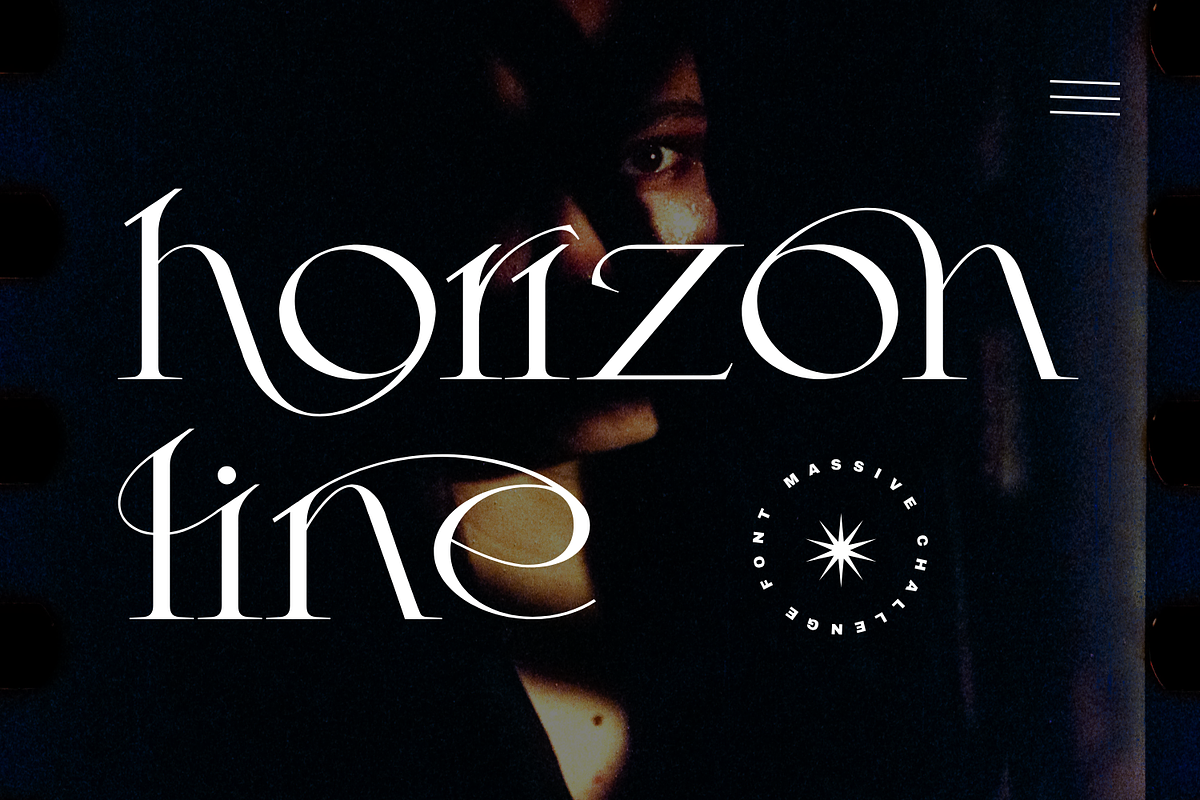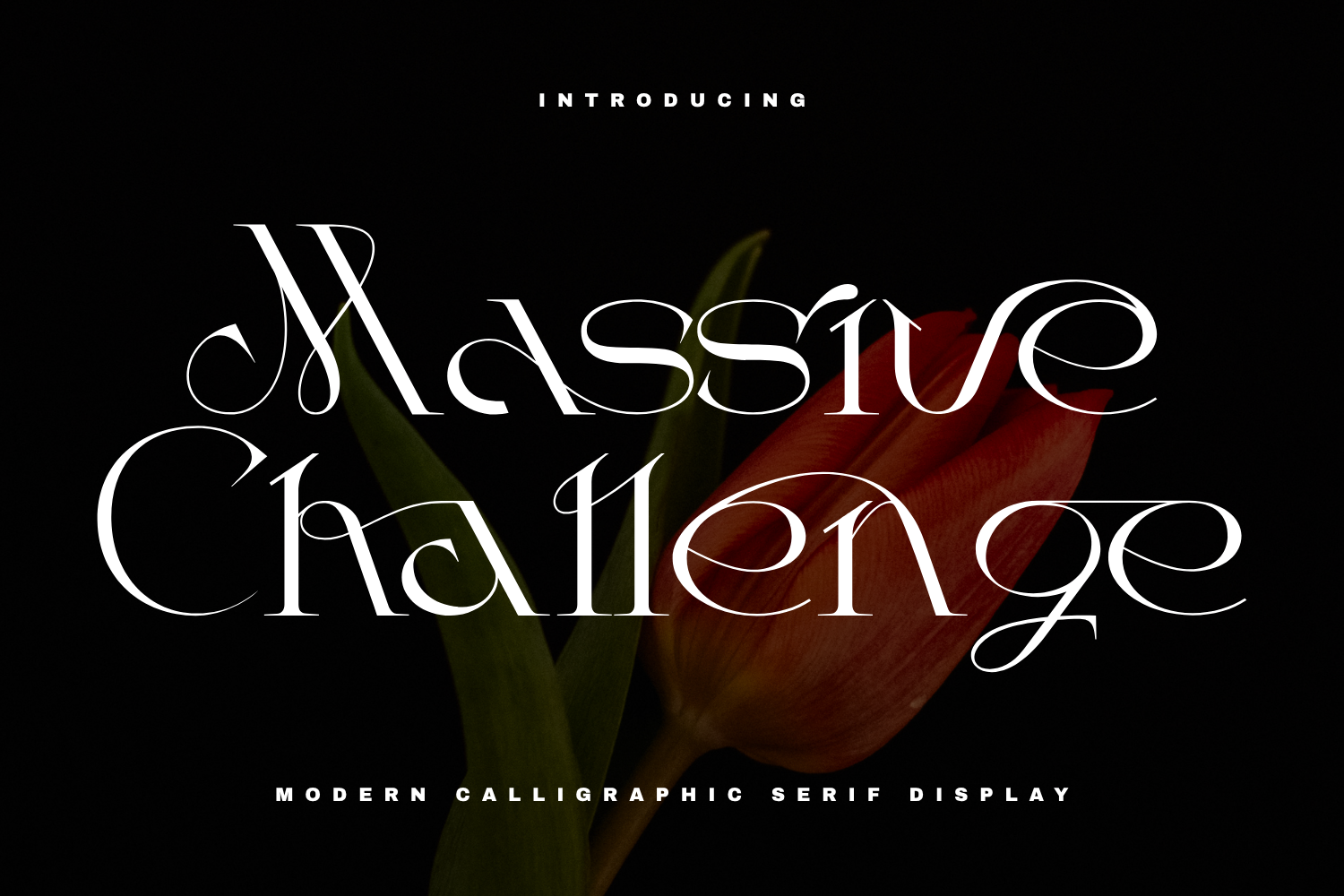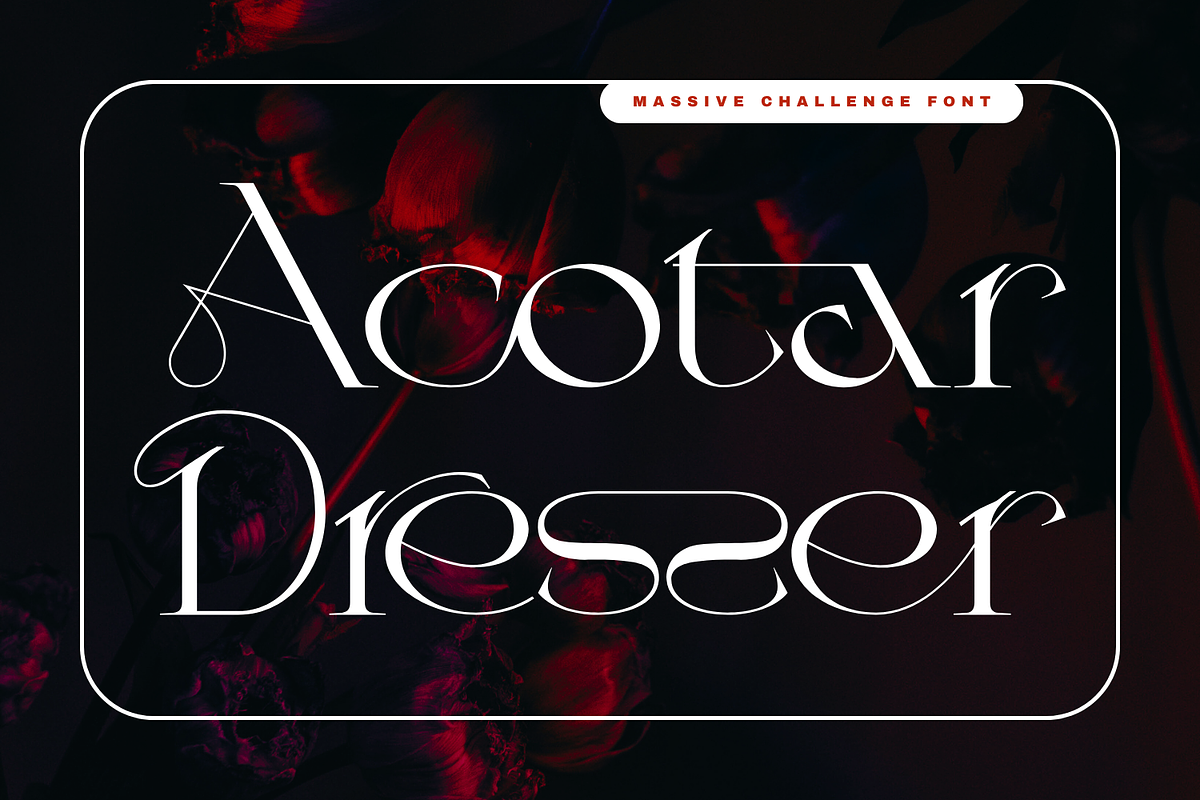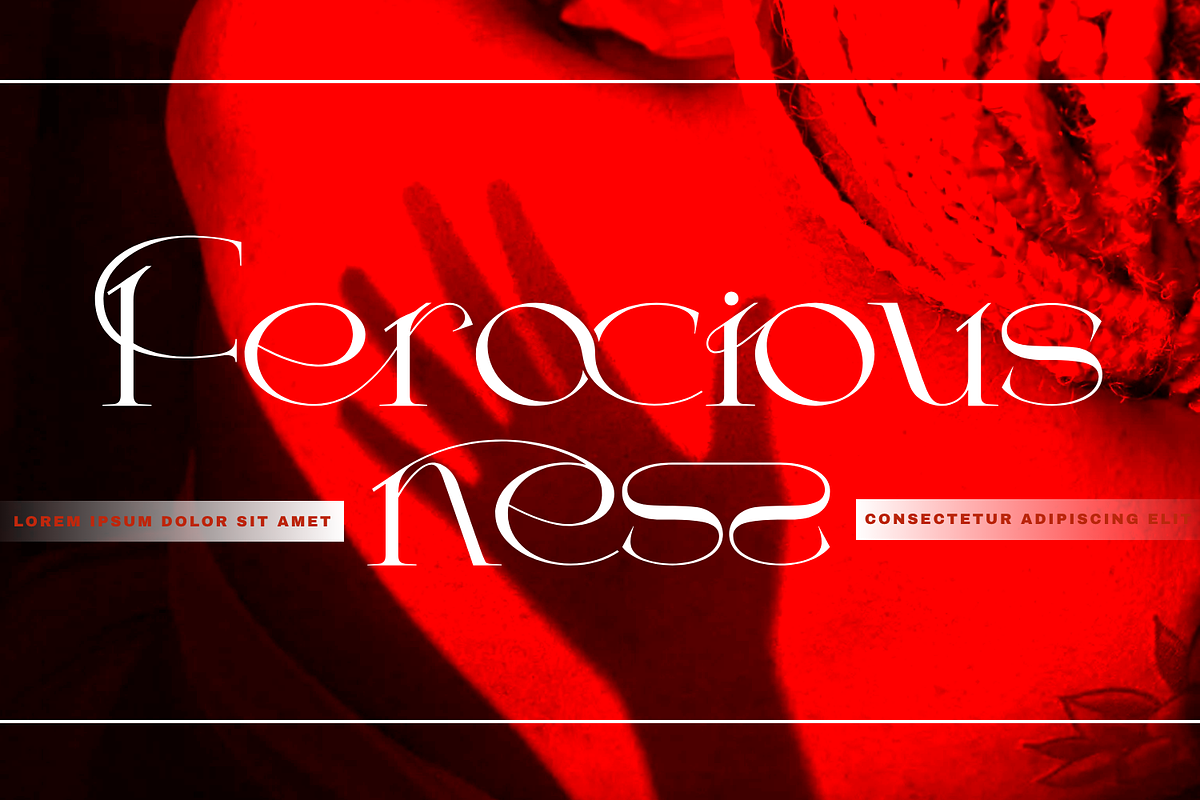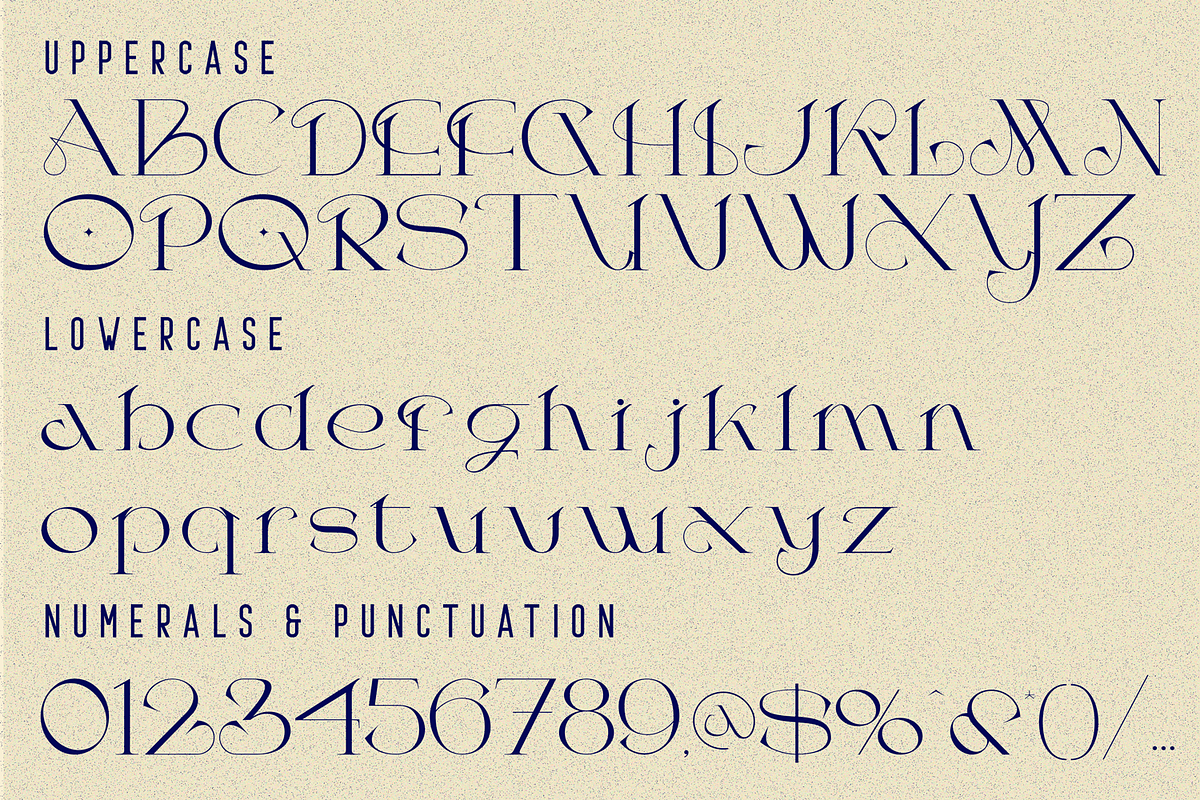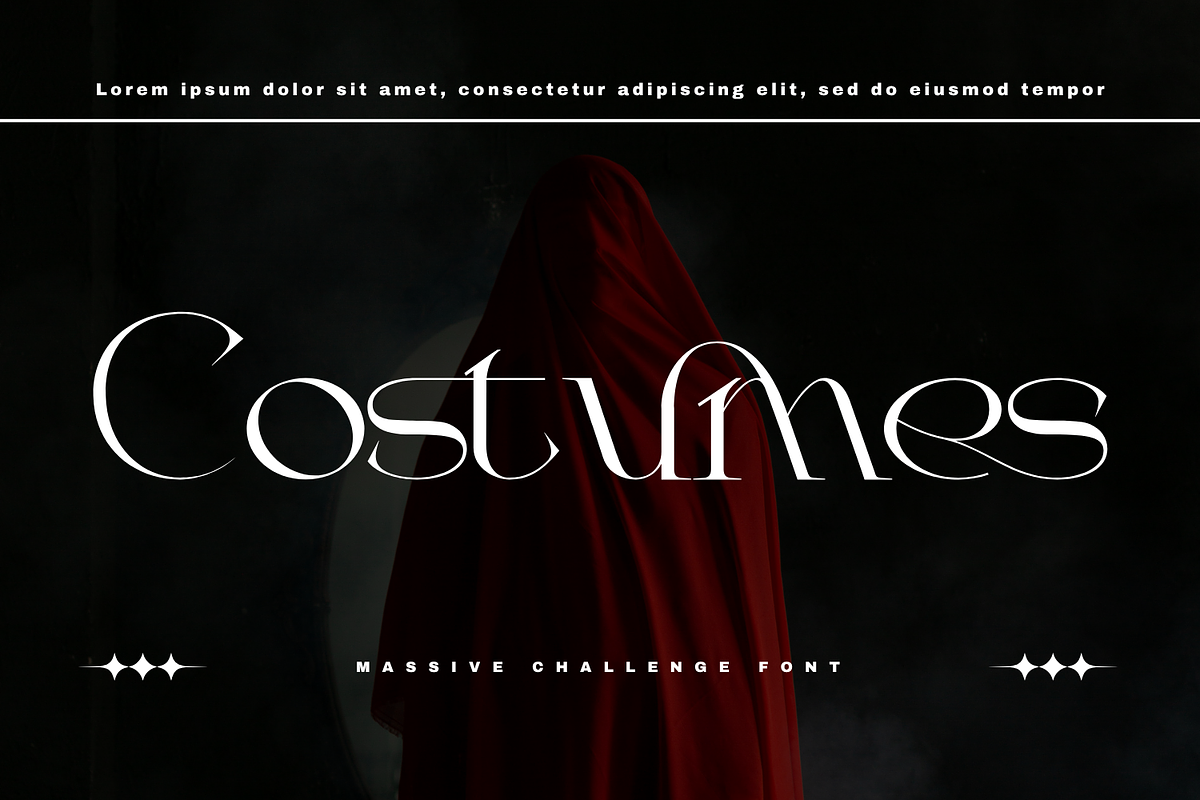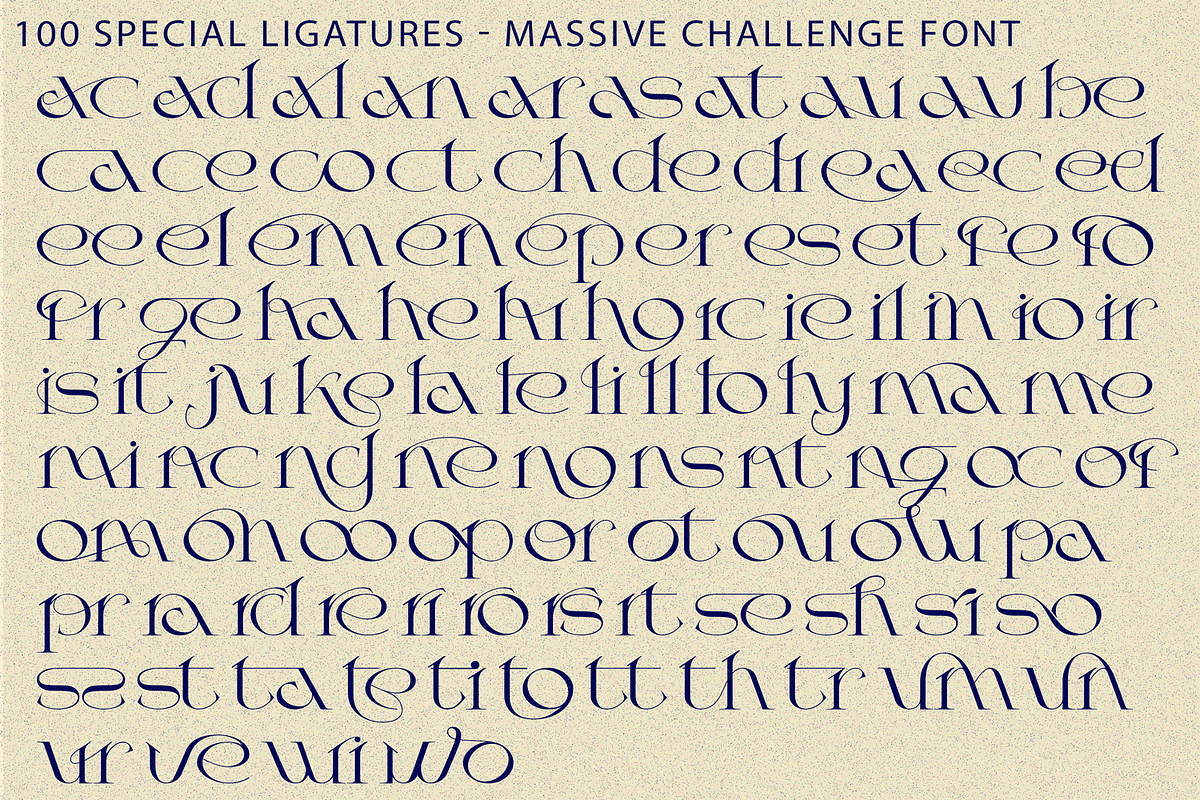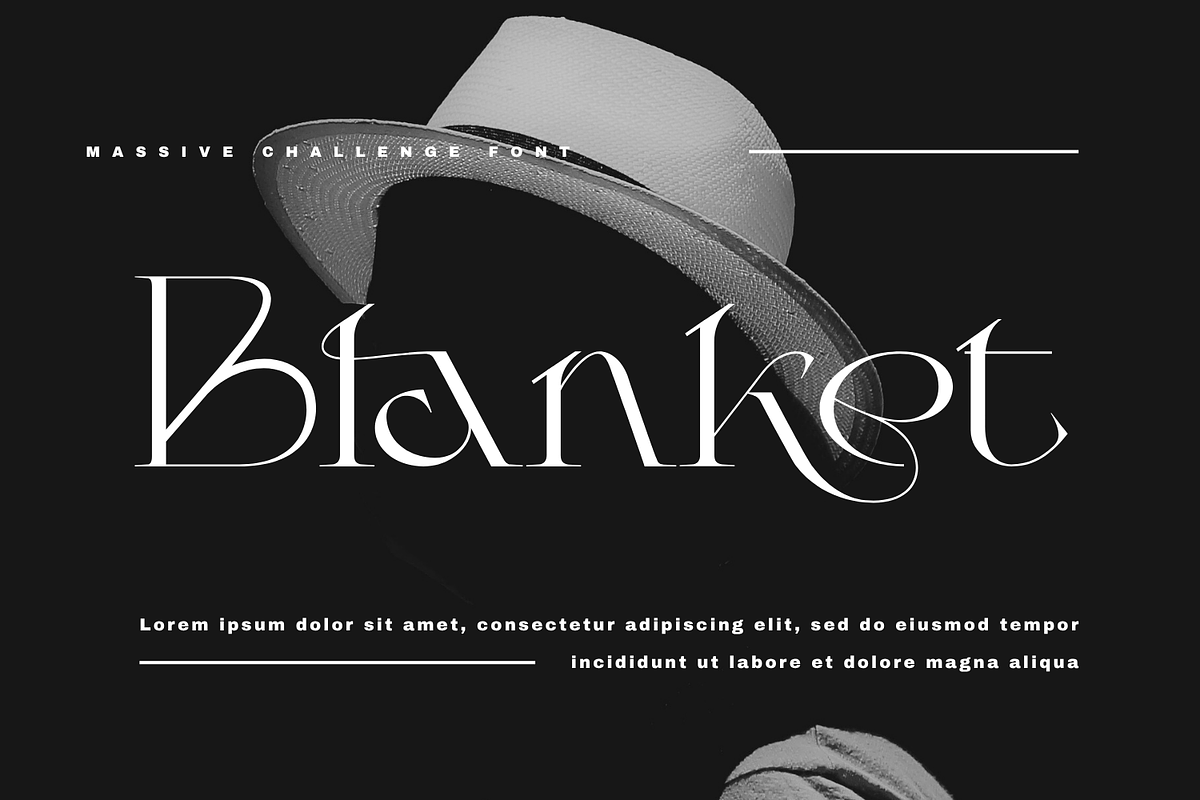
Massive Challenge - Fashion Font
Massive Challenge - Fashion Font is a luxurious modern serif display font that blends timeless elegance with contemporary sophistication. Featuring dramatic high-contrast strokes, delicate hairline details, and beautifully flowing swashes, this typeface creates a refined and graceful visual experience that instantly captures attention. Designed with fashion-forward aesthetics in mind, Massive Challenge showcases elongated terminals, elegant curves, and expressive letterforms that bring a sense of movement and artistry to every word. Its distinctive character makes it ideal for creating memorable branding and visually stunning typography compositions.
Uppercase & Lowercase Letters
Around 100 Special Ligatures & Alternates
Accented Characters for multilingual support
🔤About 100 ligatures combined with Stylistic Alternates Font:
ac ad al an ar as at au av be ca ce ch co ct de di ea ec ed ee el em en ep er es et fe fo fr ge ha he hi ho ie ic il in io ir is it ju ke la le li ll lo ly ma me mi nc nd ne ng no nt ns oc of om on oo op or ot ou ow pa pr ra rd re ri ro rs rt se sh si so ss st ta te th ti to tr tt um un ur ve wi wo